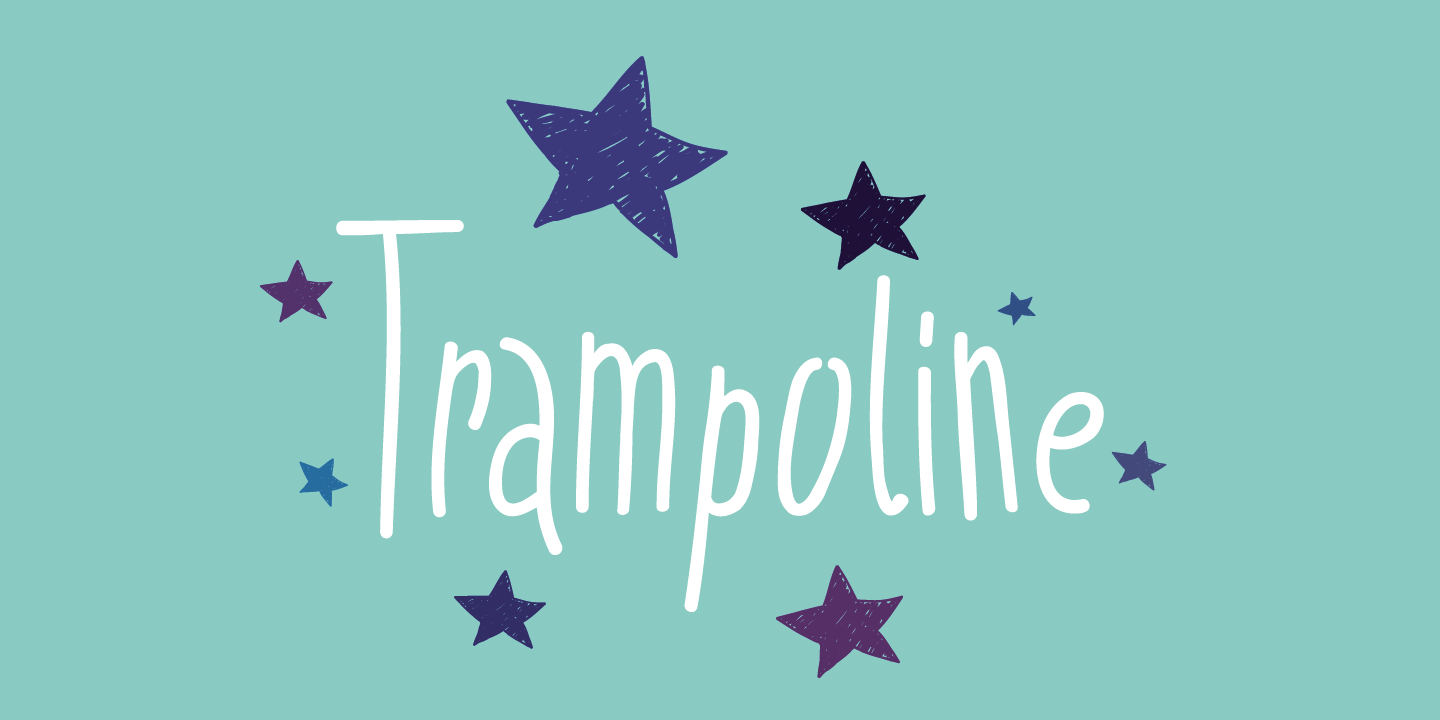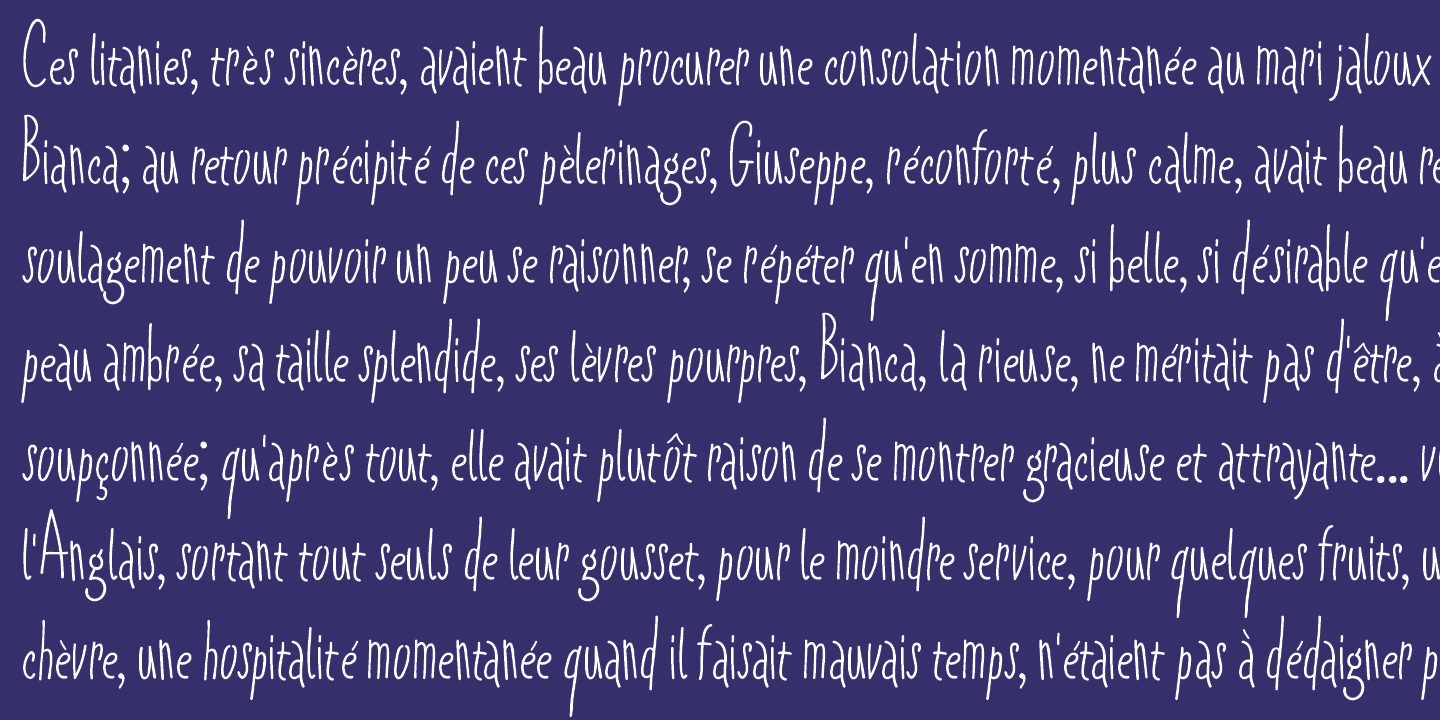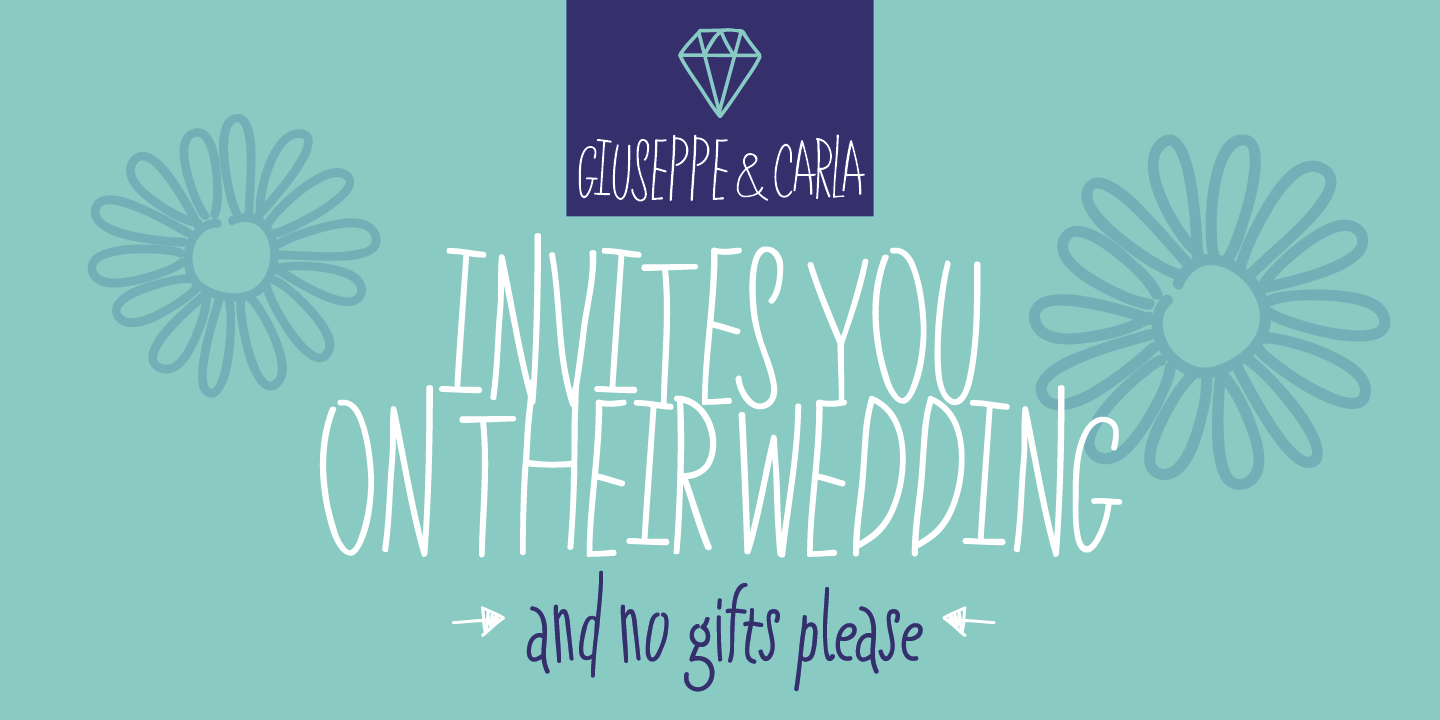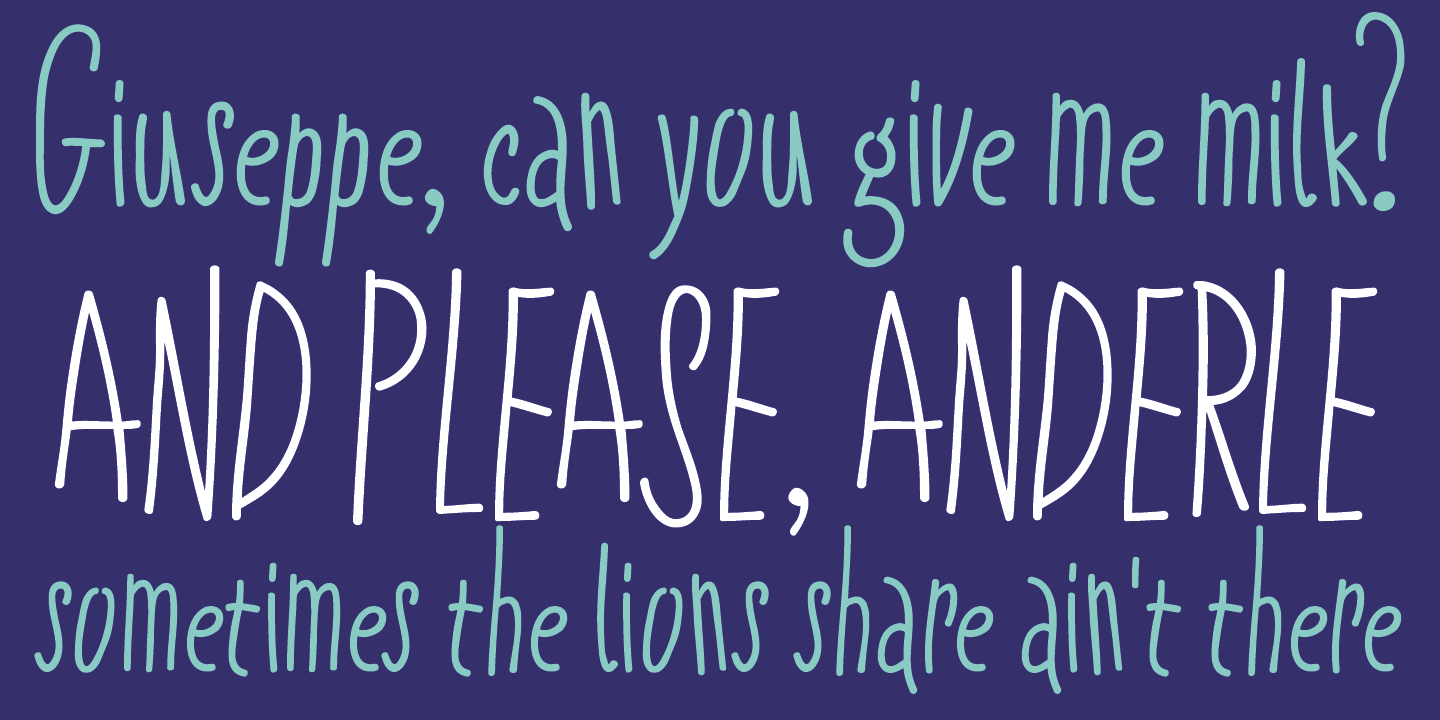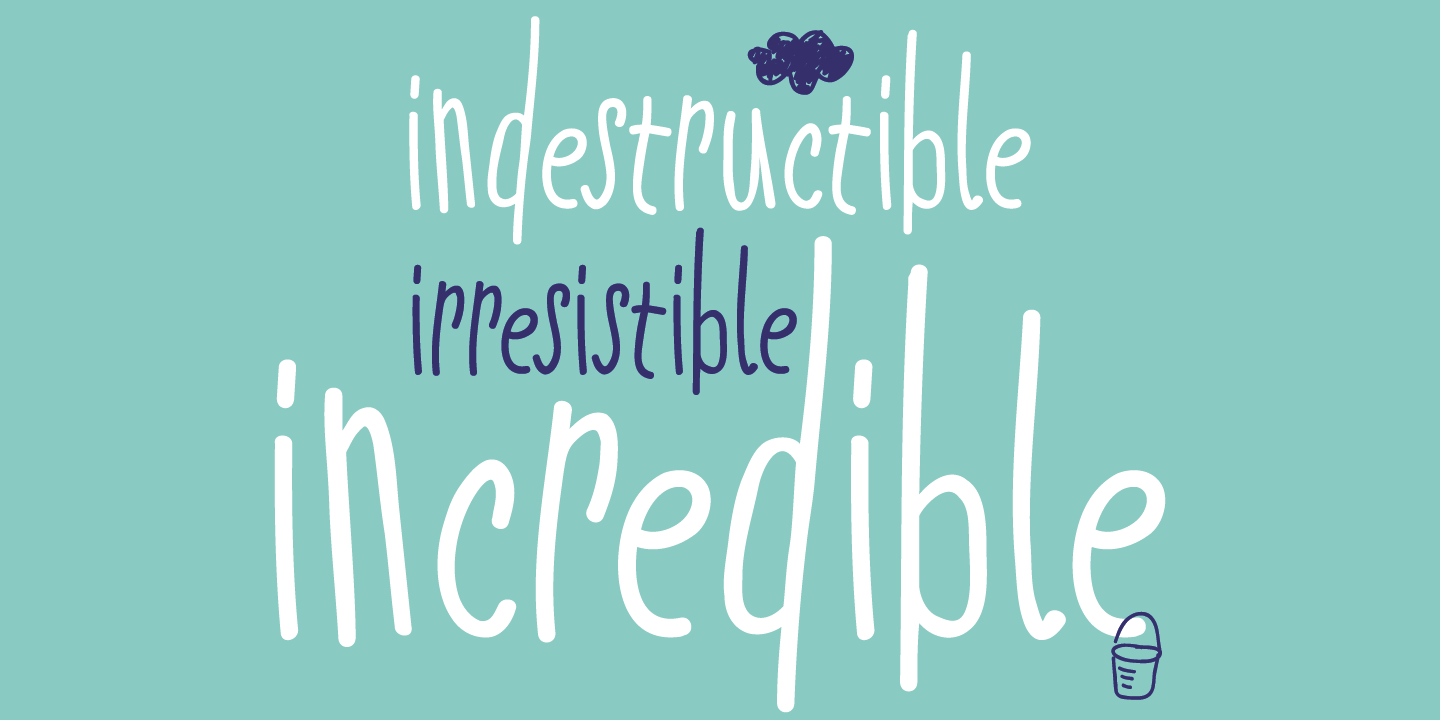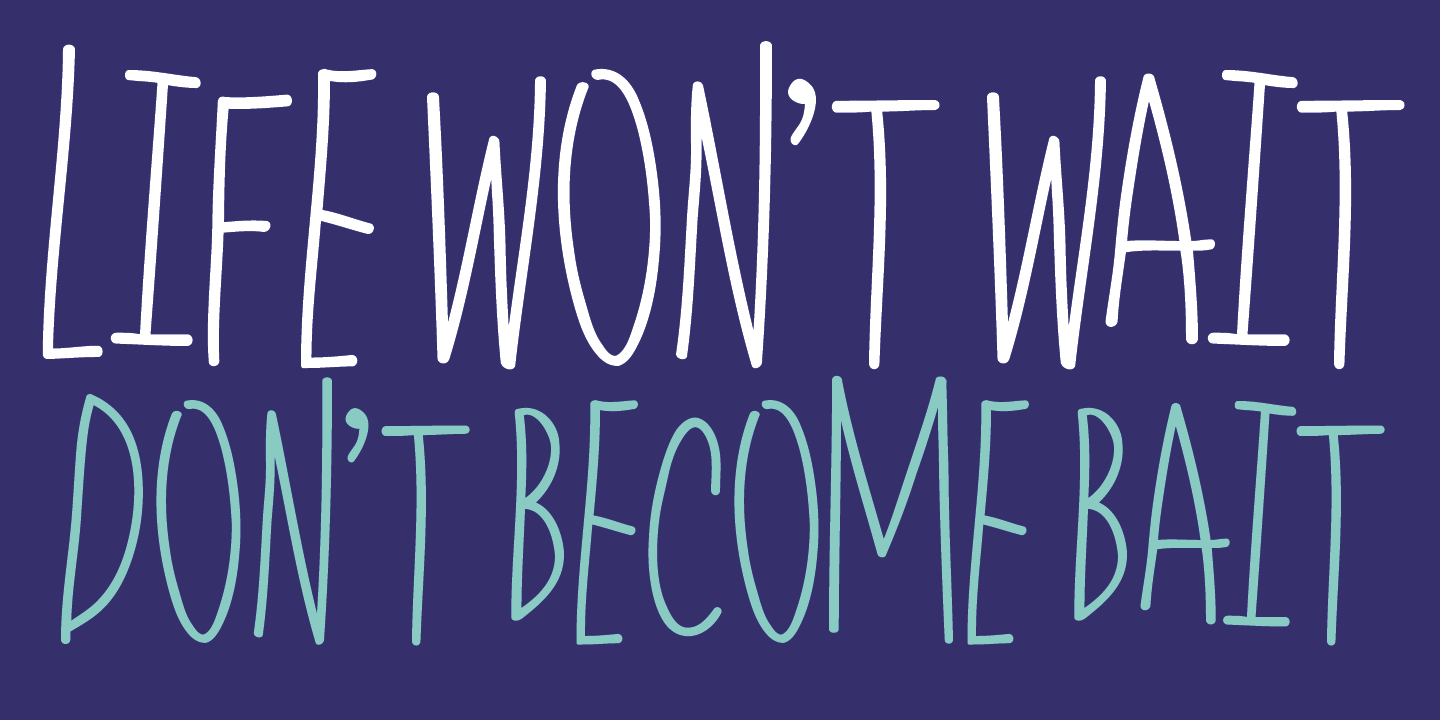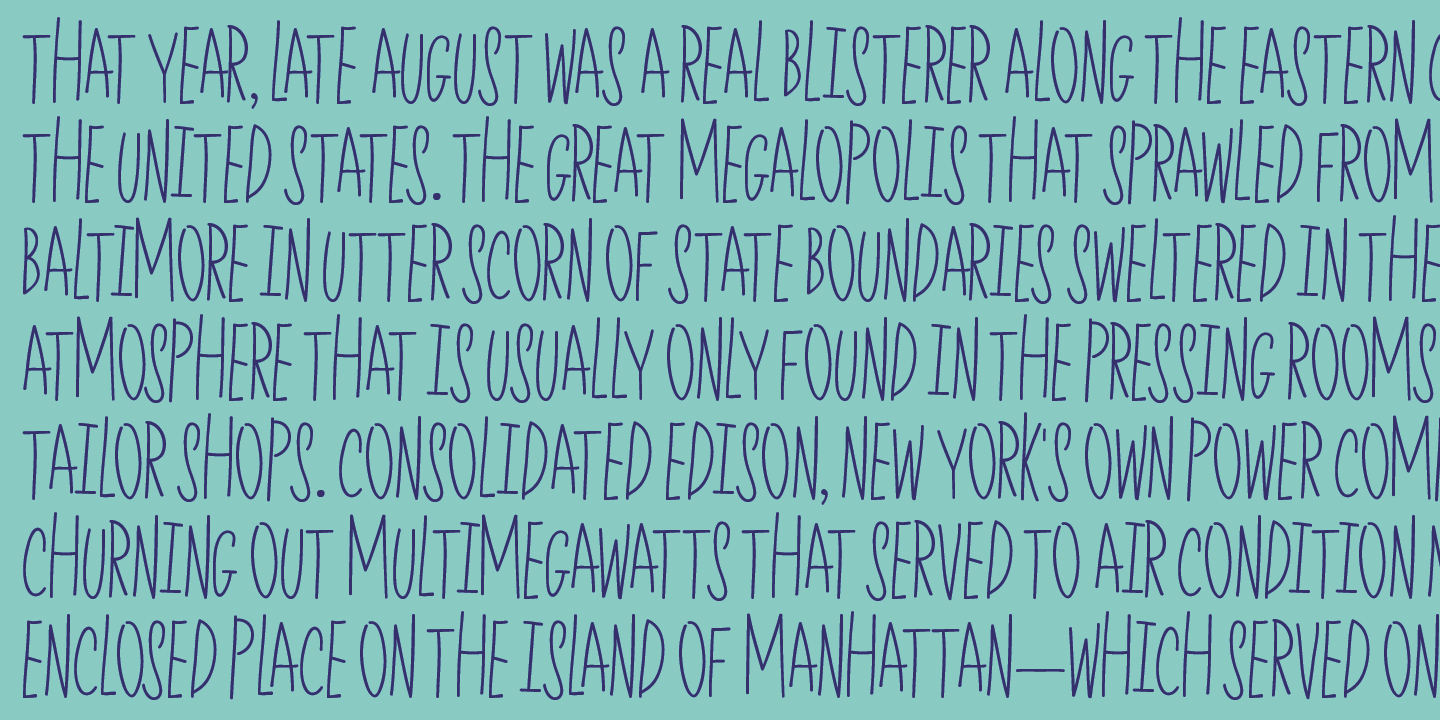
Trampoline is neat handwriting typeface inspired by requests I'm receiving as designer from people who would like to display dose of human touch in their products and editorials by having an typeface with personality and individuality.